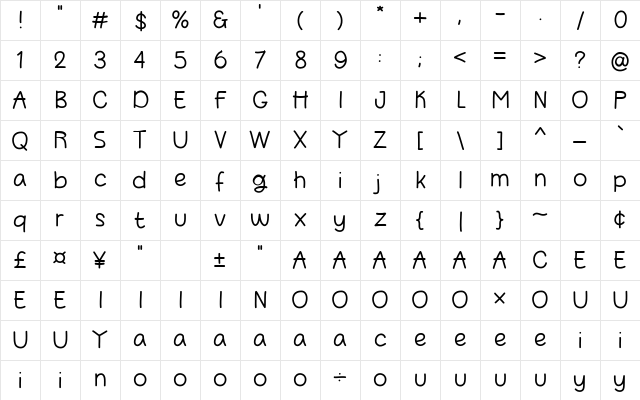
Complete Sunday Donuts Regular glyph index. Displaying only characters natively supported by Sunday Donuts Regular font.
Sunday Donuts is a composed and adaptable typeface that performs quietly and consistently across a wide range of design contexts.